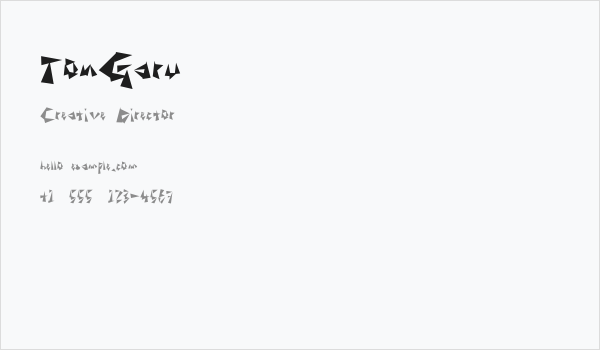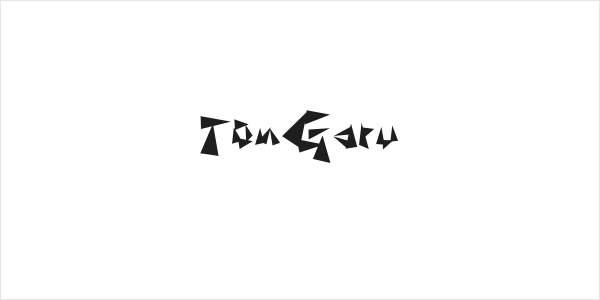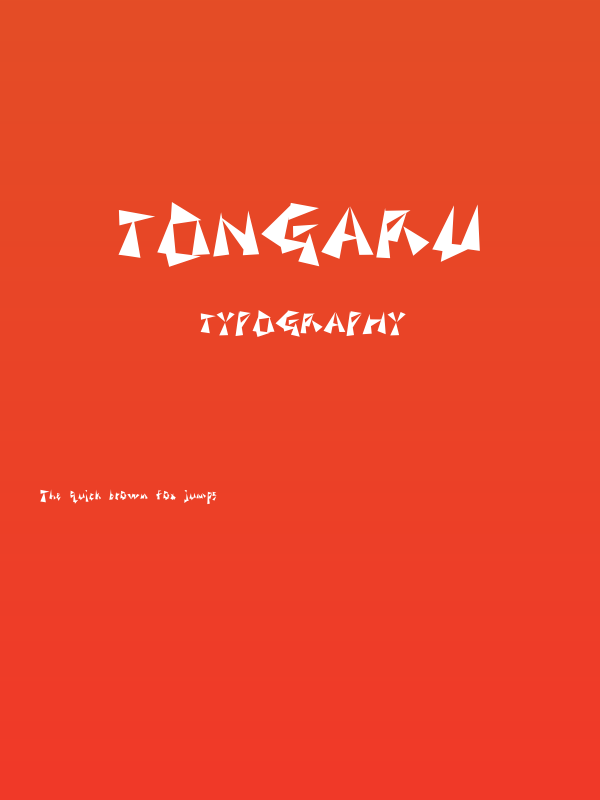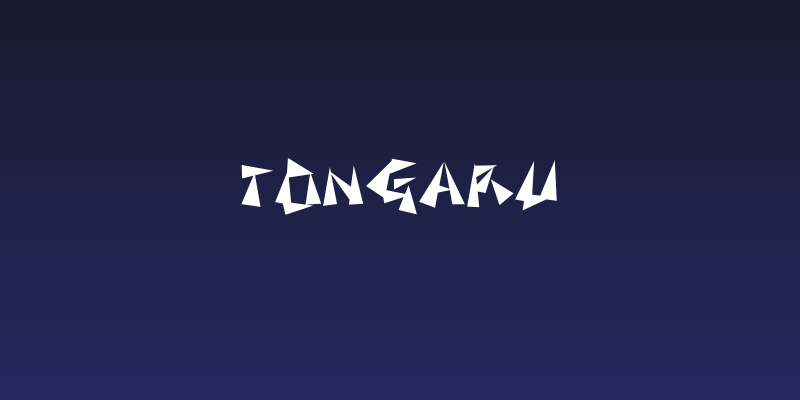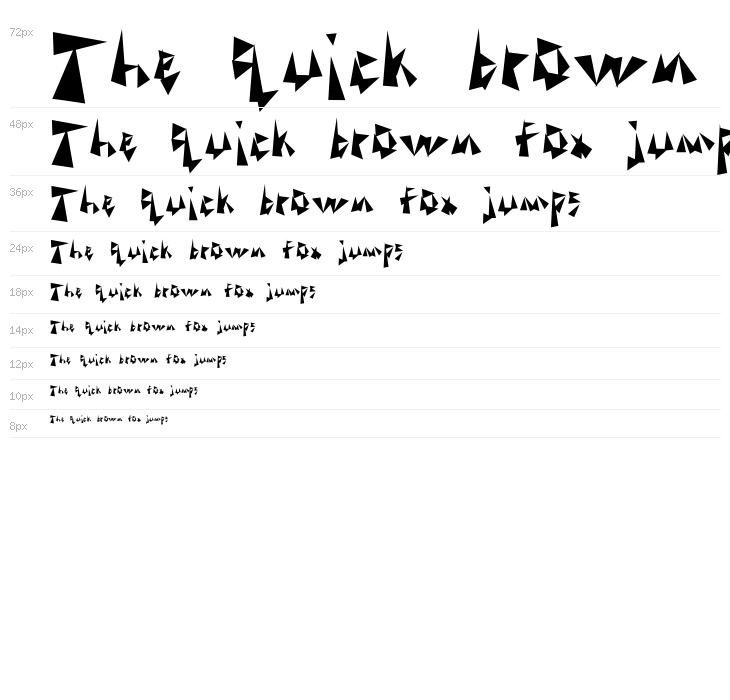
TonGaru Font
TonGaru Description
This font features a highly stylized and angular design, with each character composed of sharp, jagged edges and irregular shapes. The letters and numbers are bold and dynamic, creating a sense of movement and energy. The overall appearance is reminiscent of shattered glass or abstract geometric art, making it stand out with its unique and unconventional style. The font's distinctiveness is further enhanced by its irregular character spacing and varying stroke thickness, adding to its edgy and modern aesthetic.
| Overall Style | Modern, Edgy |
| Use Case | Logos, Posters, Album Covers |
| Proposed Projects | Ideal for edgy graphic designs, album covers, posters, and branding that requires a bold statement. |